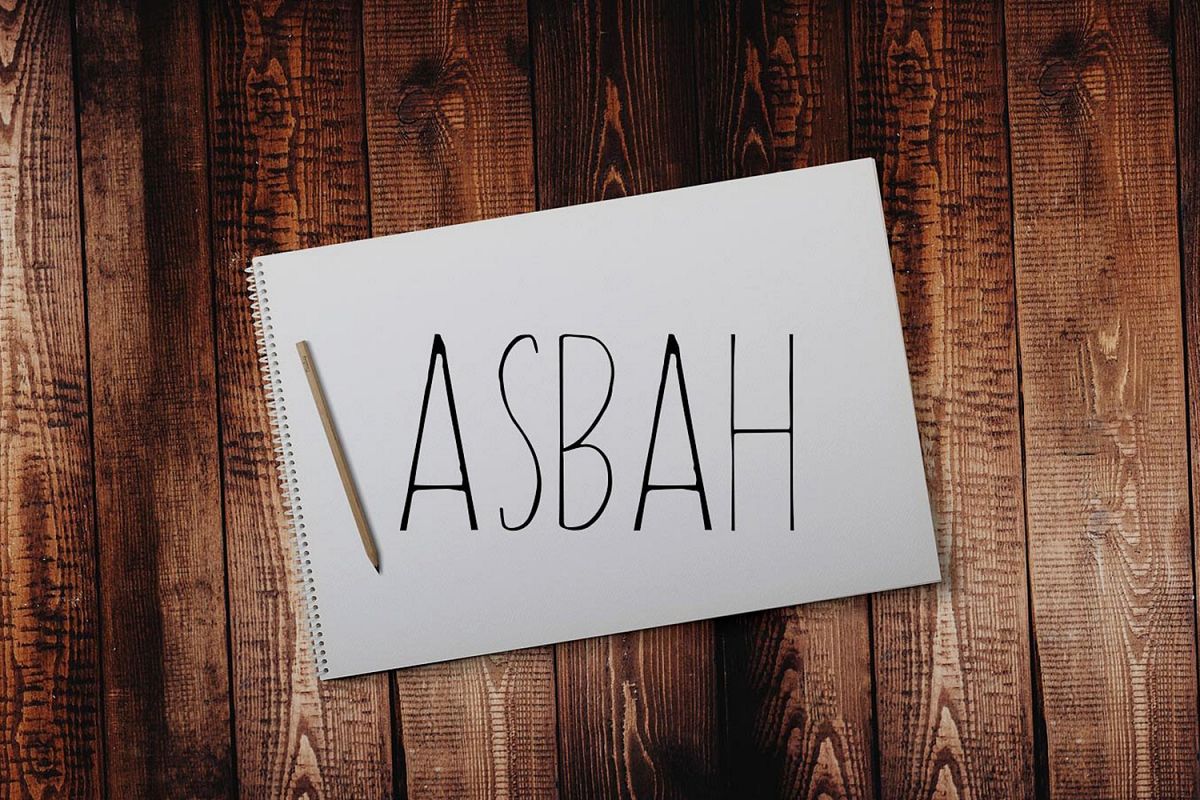
Asbah Sans Serif Font
Asbah
Asbah Sans Serif is the perfect font to create sleek and elegant headlines and female website logo designs. It pairs well with both script and serif fonts.